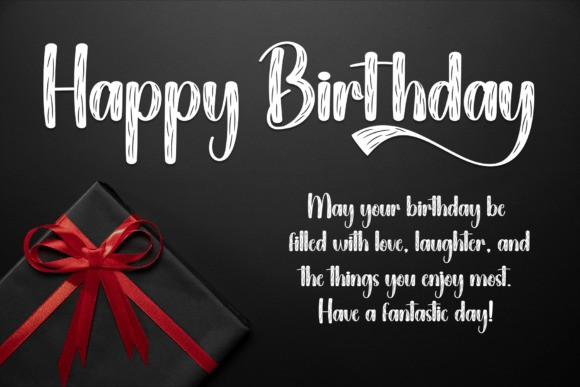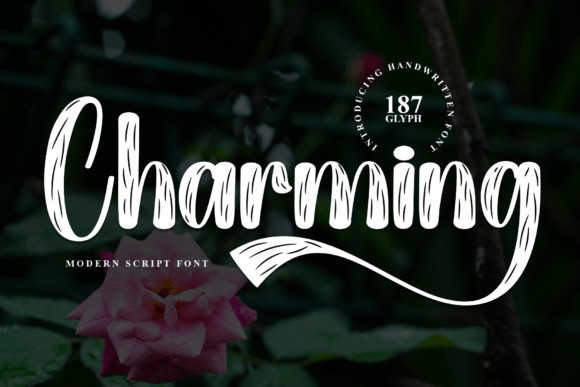
Charming Script Typeface
Charming Script Typeface is a fun and versatile handwritten font. Whether you’re using it for crafting, digital designing, presentations, or greeting card making, it’s perfect!